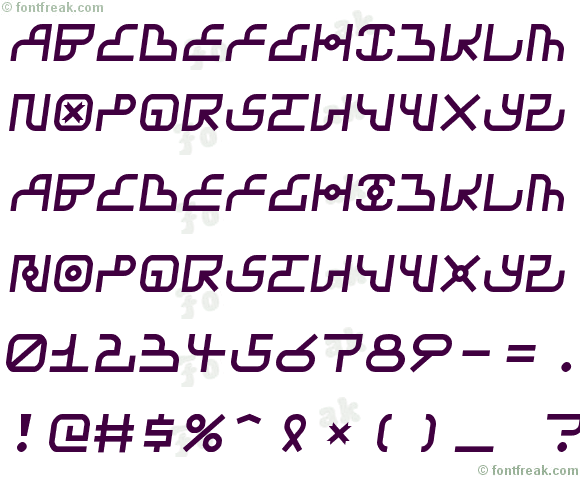
Airbag Street
About Airbag Street
The Airbag Street font by Pizzadude is a striking display typeface that combines urban flair with a modern aesthetic. Characterized by its unique geometric forms and rounded edges, this font captures a sense of dynamism and contemporary style. The strokes exhibit a medium weight, with a consistent contrast that enhances legibility while maintaining a playful vibe. The spacing between characters is well-balanced, allowing for easy readability, which is essential for a variety of applications. Decorative elements, such as circular motifs within some letters, add a distinctive character that makes the font memorable.
The Airbag Street font is ideal for a wide range of creative projects. Its modern look makes it a perfect choice for branding materials, such as logos for streetwear fashion labels or urban-themed events. Additionally, it would shine in promotional graphics for music festivals, adding a fresh and energetic touch. Restaurant menus, especially for modern eateries or food trucks, can benefit from its bold presence, making dish names stand out. Moreover, the font is suitable for digital content, such as social media graphics and website headers, where capturing attention is crucial.
Targeted toward graphic designers, small business owners, and content creators, the Airbag Street font provides a versatile option for anyone looking to infuse a sense of urban style into their work. Its freeware license ensures that it is accessible for all, making it a fantastic resource for budding creatives and established professionals alike. The distinctiveness of the Airbag Street font sets it apart, offering a blend of personality and functionality that can elevate any design project. For those interested, an Airbag Street font free download is available, allowing you to explore its potential in your creative endeavors.